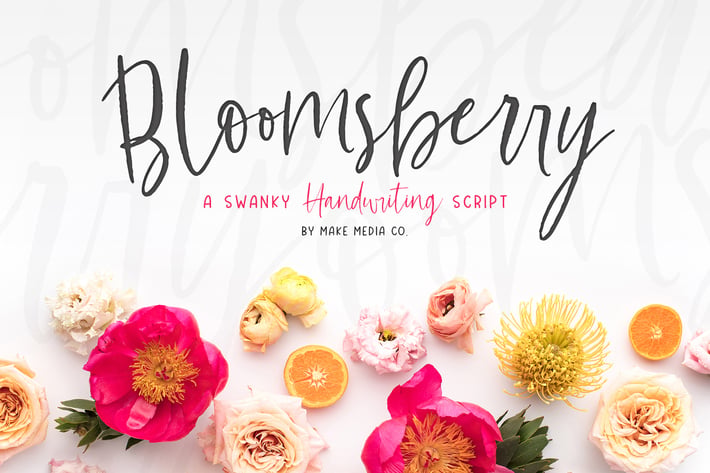
Bloomsberry Font Family
Meet Bloomsberry! A swanky, yet sweet handwriting font and its adorable sans-serif sidekick. Bloomsberry was designed to fit everything from logos, to packaging, to invitation design. And looks especially awesome as headlines, and signatures. ❤❤❤
- Bloomsberry Script (OTF & TTF) - A swanky handwriting font with a dancing baseline, complete with automatic ligatures, and select alternates.
- Bloomsberry Sans Skinny (OTF & TTF) - A simple sans-serif sidekick to compliment the script.
- Please note this font is NOT completely smooth. There is a subtle texture to the script font. I'm not sure how these will work with Cameo software, but you're welcome to give it a shot and report back. :)